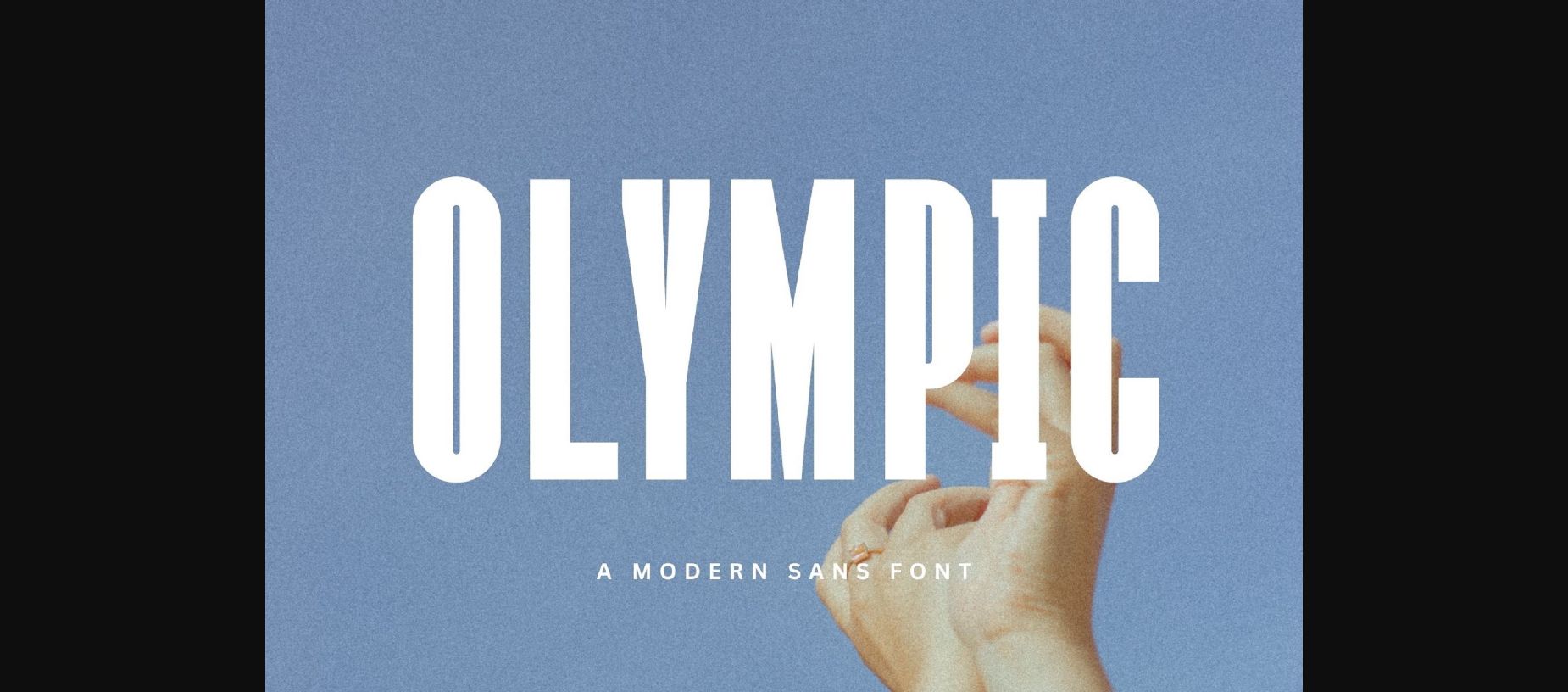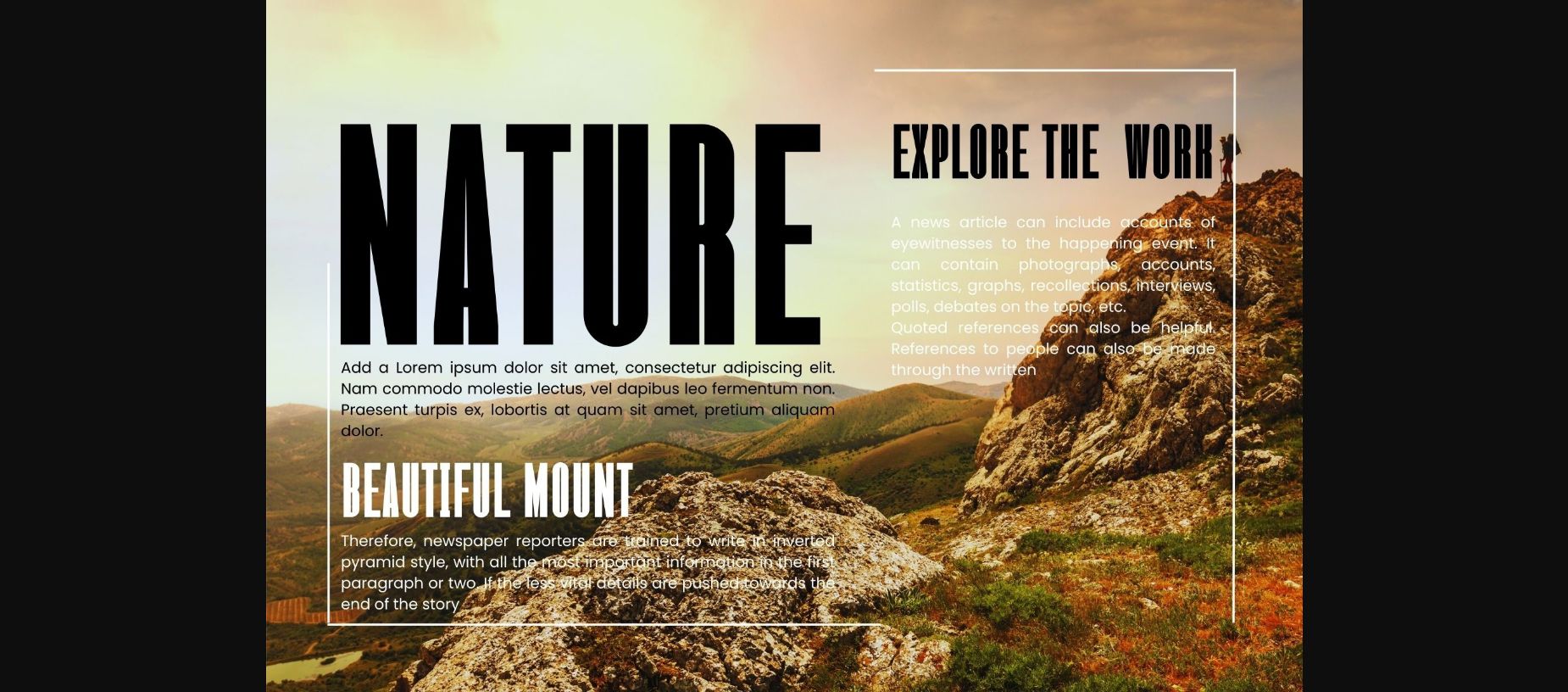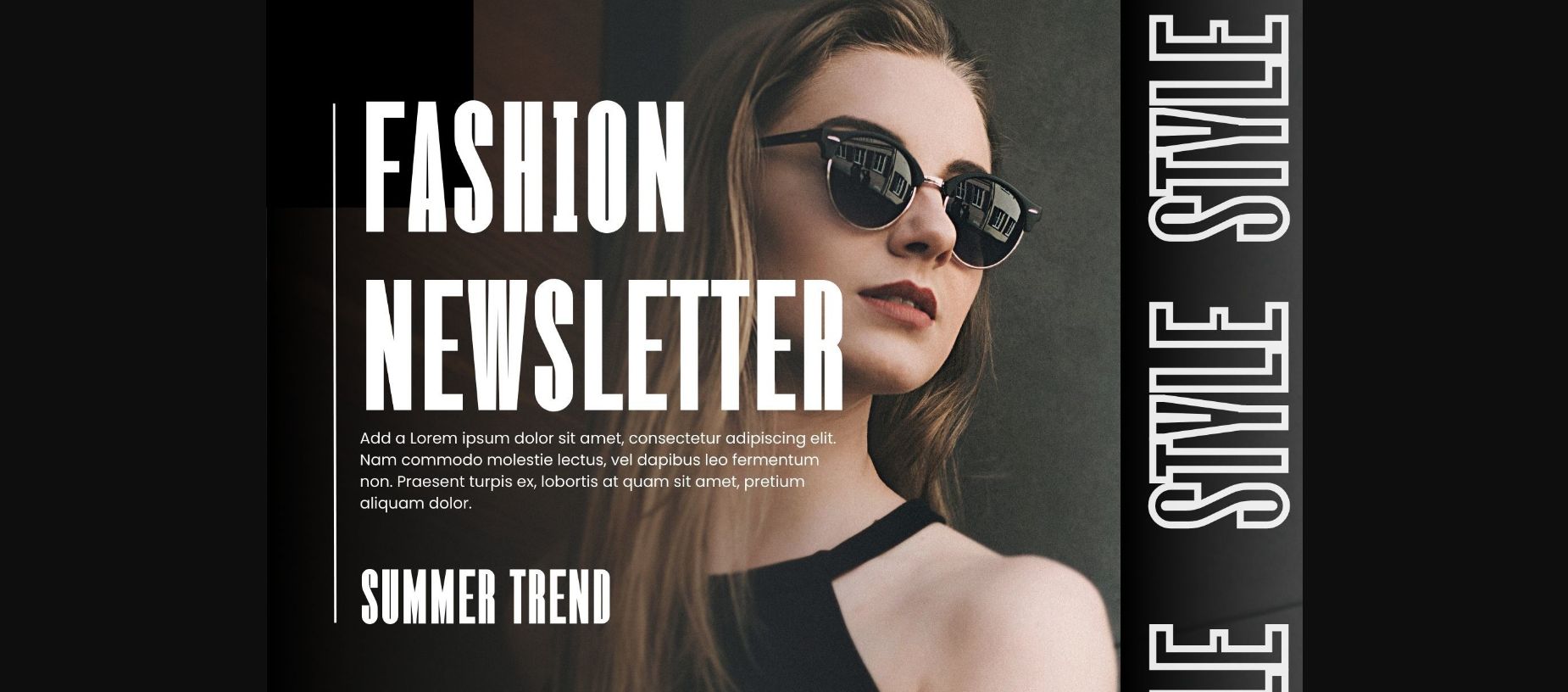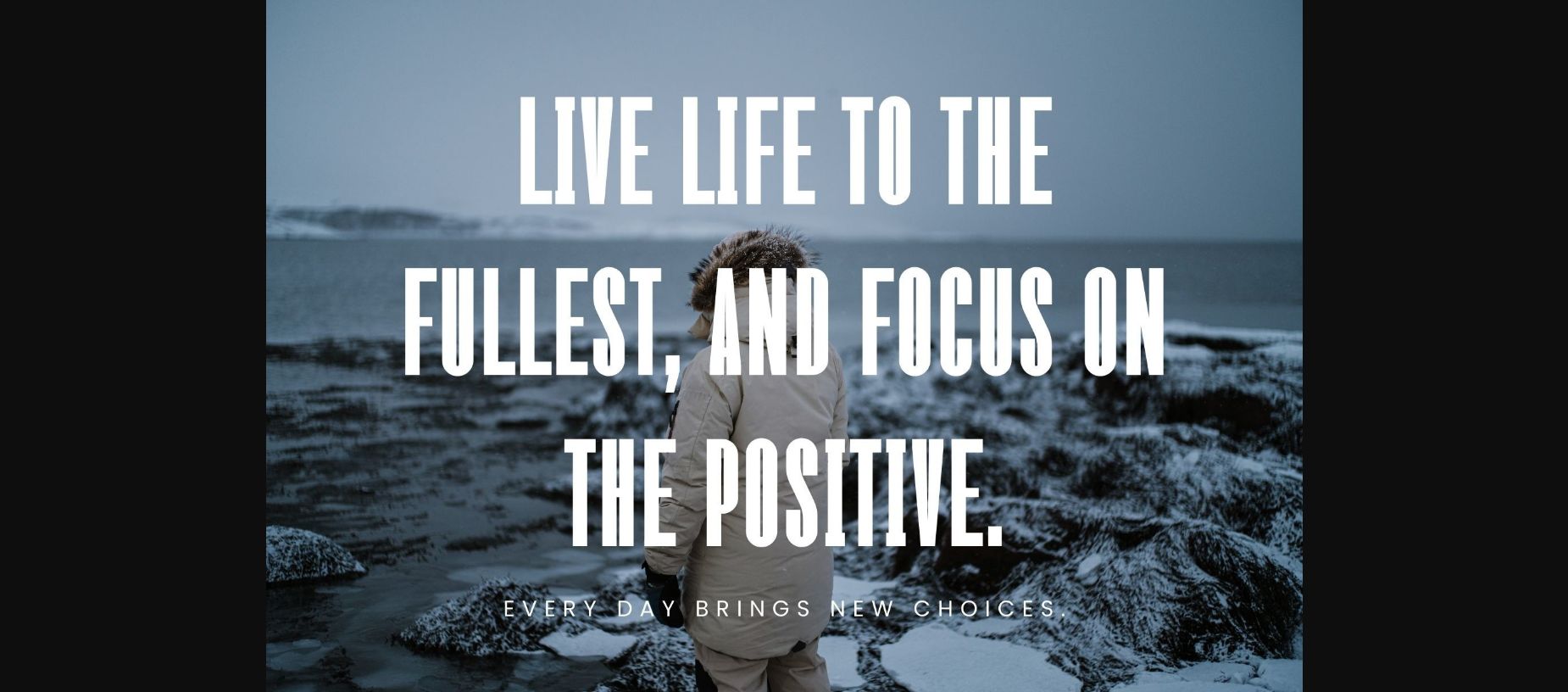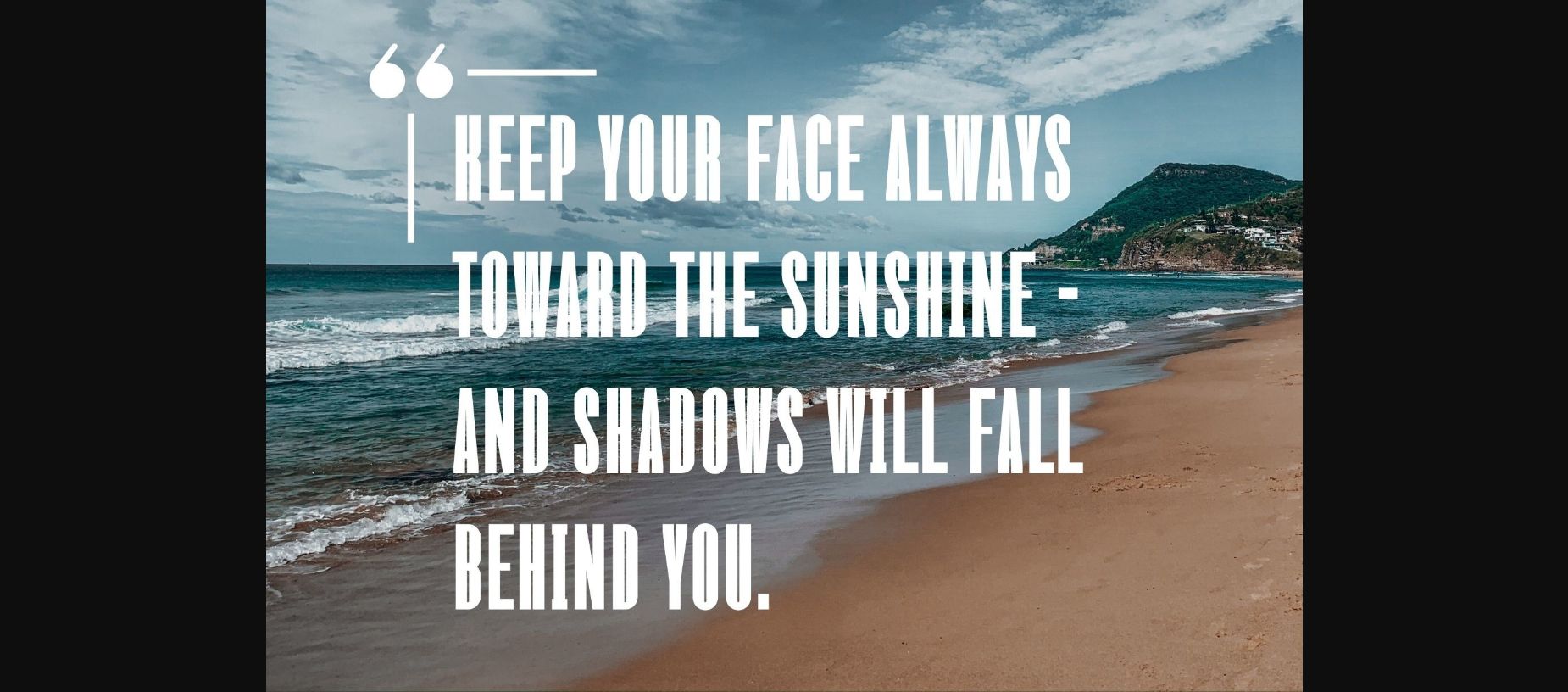
About Olympic Font
Olympic is a sleek and contemporary sans-serif font that embodies a sense of strength and elegance. With clean lines and balanced proportions, Olympic is perfect for conveying a modern and dynamic aesthetic in various design projects. Its versatility makes it suitable for both digital and print media, making your text stand out with clarity and sophistication. Whether for headlines, body text, or branding, Olympic adds a touch of timeless style to any visual composition.